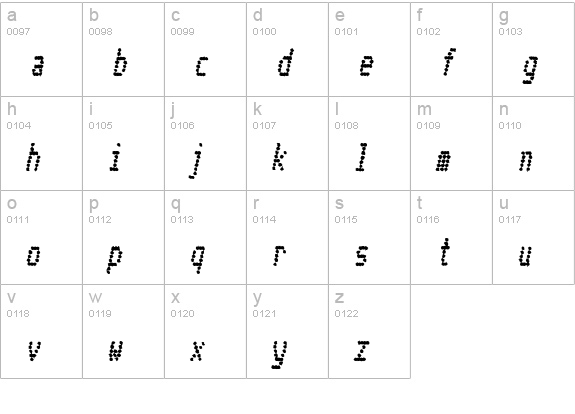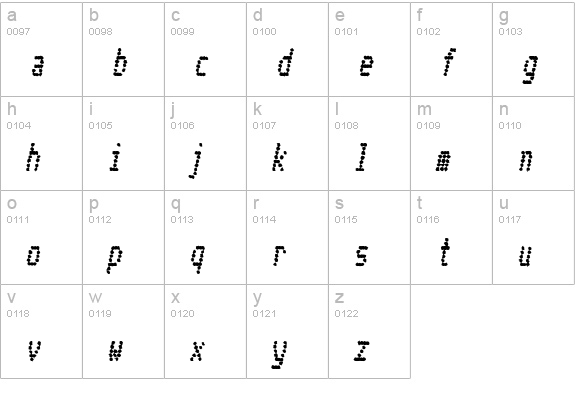
Telidon Ink Cd Bold Italic Font Details
Telidon Ink Cd Bold Italic is a strong, high-contrast, italic variant in the Telidon typeface family \xE2\x80\x94 well suited to headlines, attention-grabbing titles, and strong calls-to-action.
Telidon Ink Cd Bold Italic font is a stunning display typeface that exudes a sense of modernity and sophistication. Its bold, italicized design makes it perfect for creating eye-catching headlines, posters, and other graphic designs that demand attention. What sets Telidon Ink Cd Bold Italic font apart is its unique blend of elegance and edginess, making it a versatile choice for a wide range of creative projects. Whether you're designing a sleek website or crafting a striking logo, this font is sure to make a lasting impression. The best part? Telidon Ink Cd Bold Italic font is available for free download at FontsMarket.com, allowing you to add this stylish typeface to your design toolkit without breaking the bank. Don't miss out on the opportunity to elevate your designs with this exceptional font that combines boldness and sophistication in a truly captivating way.